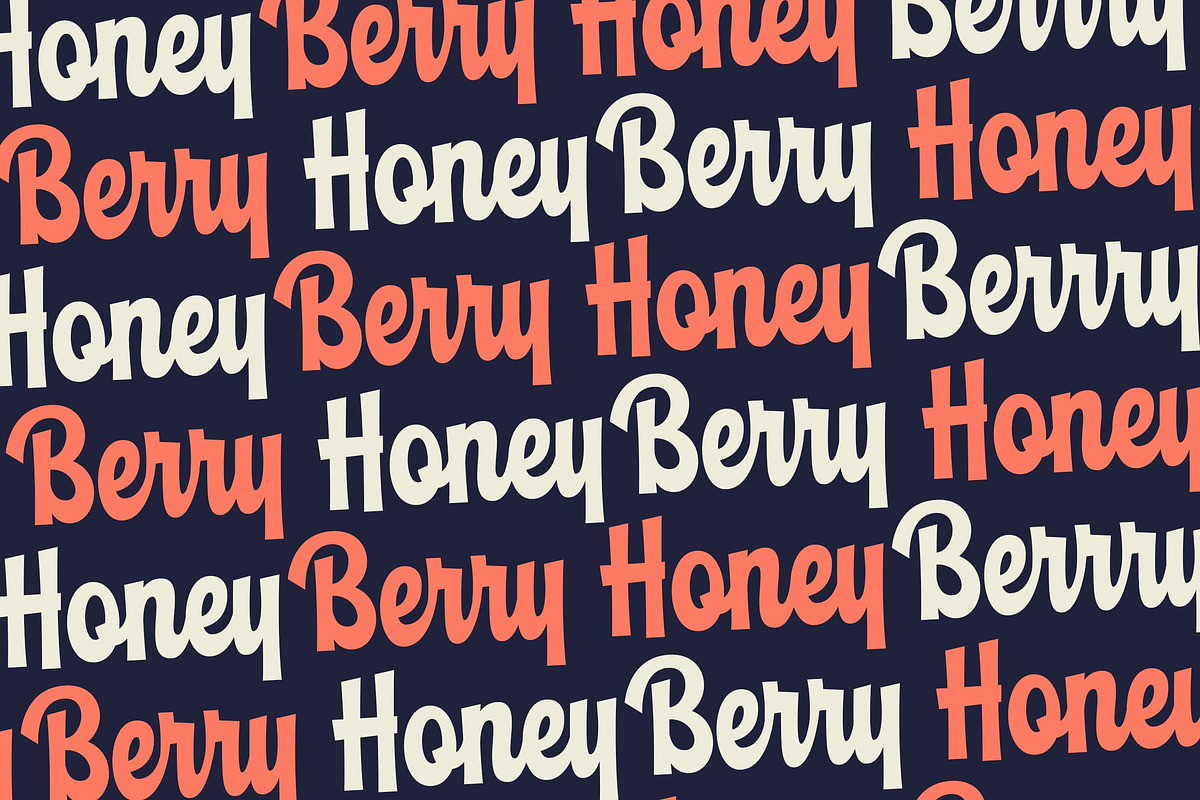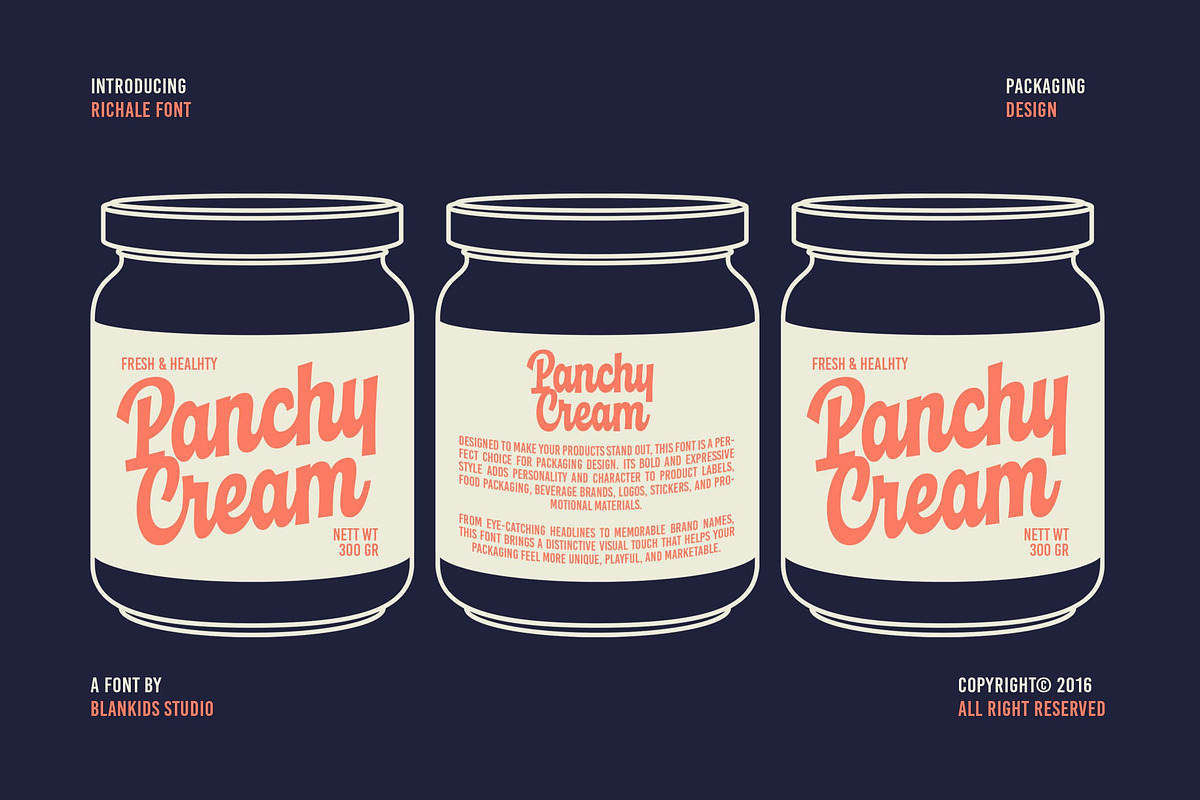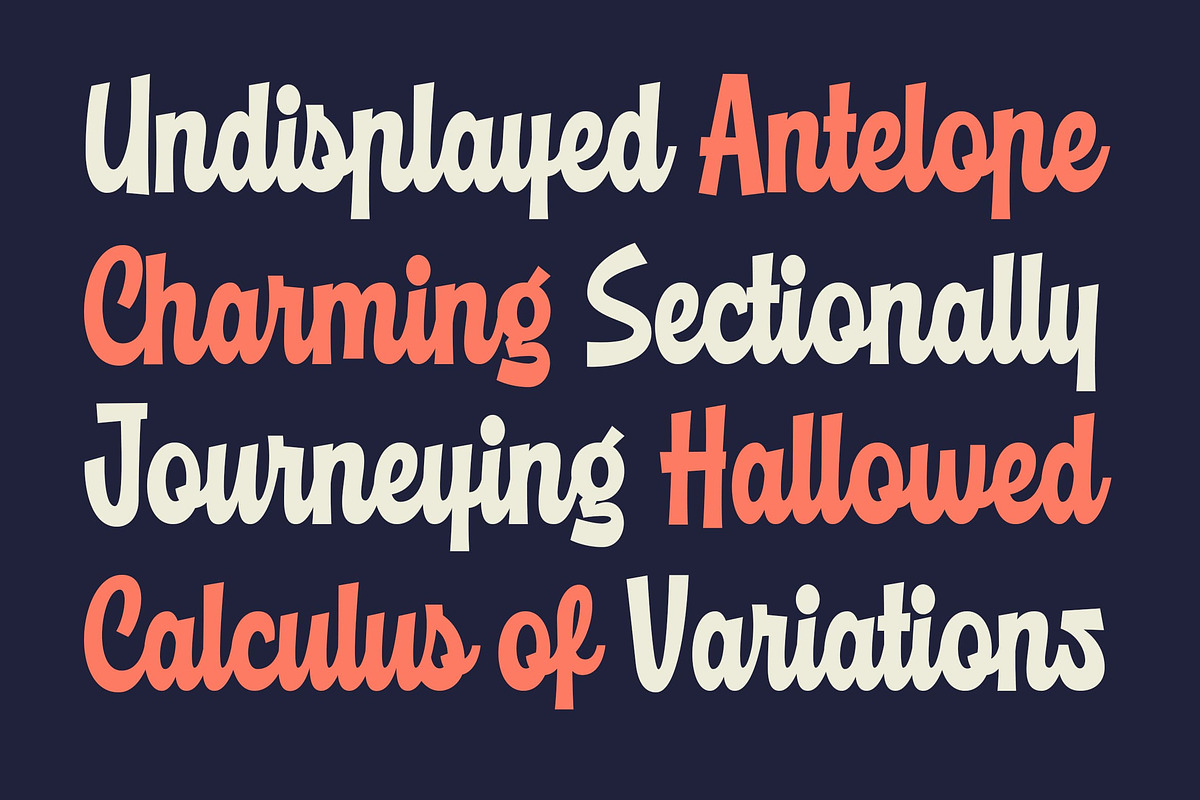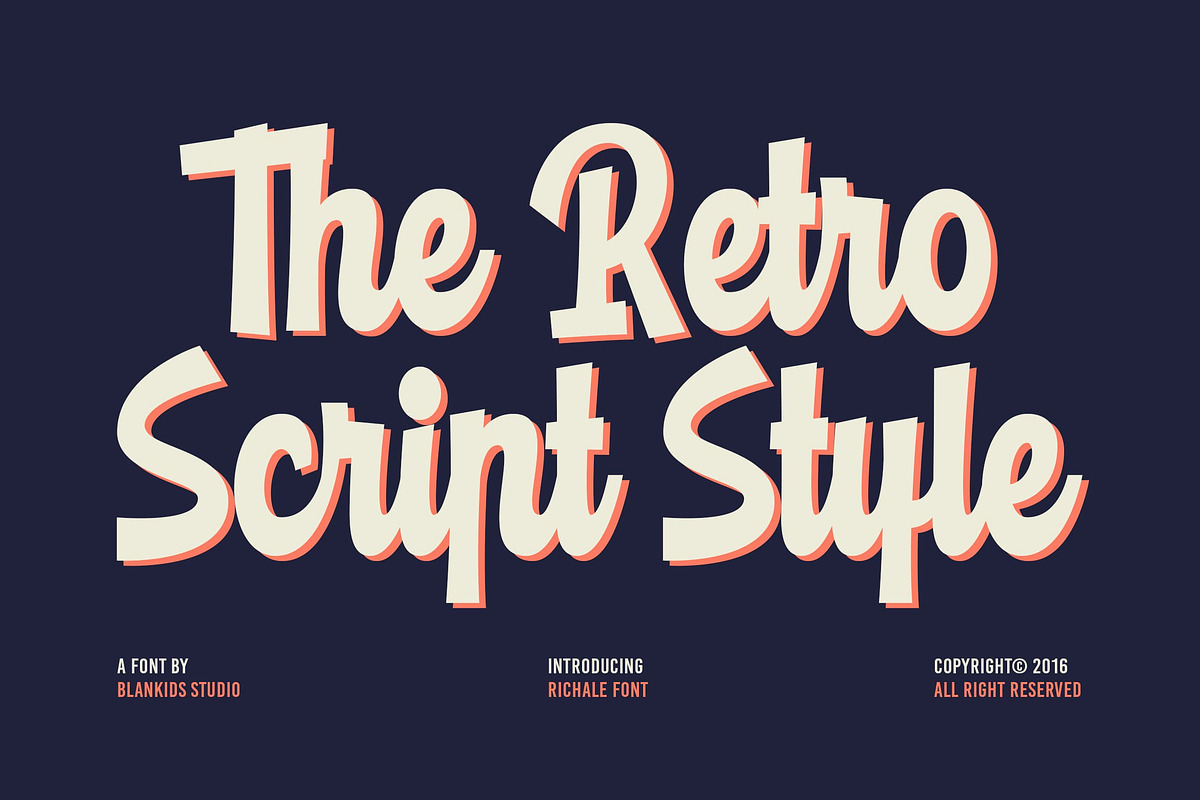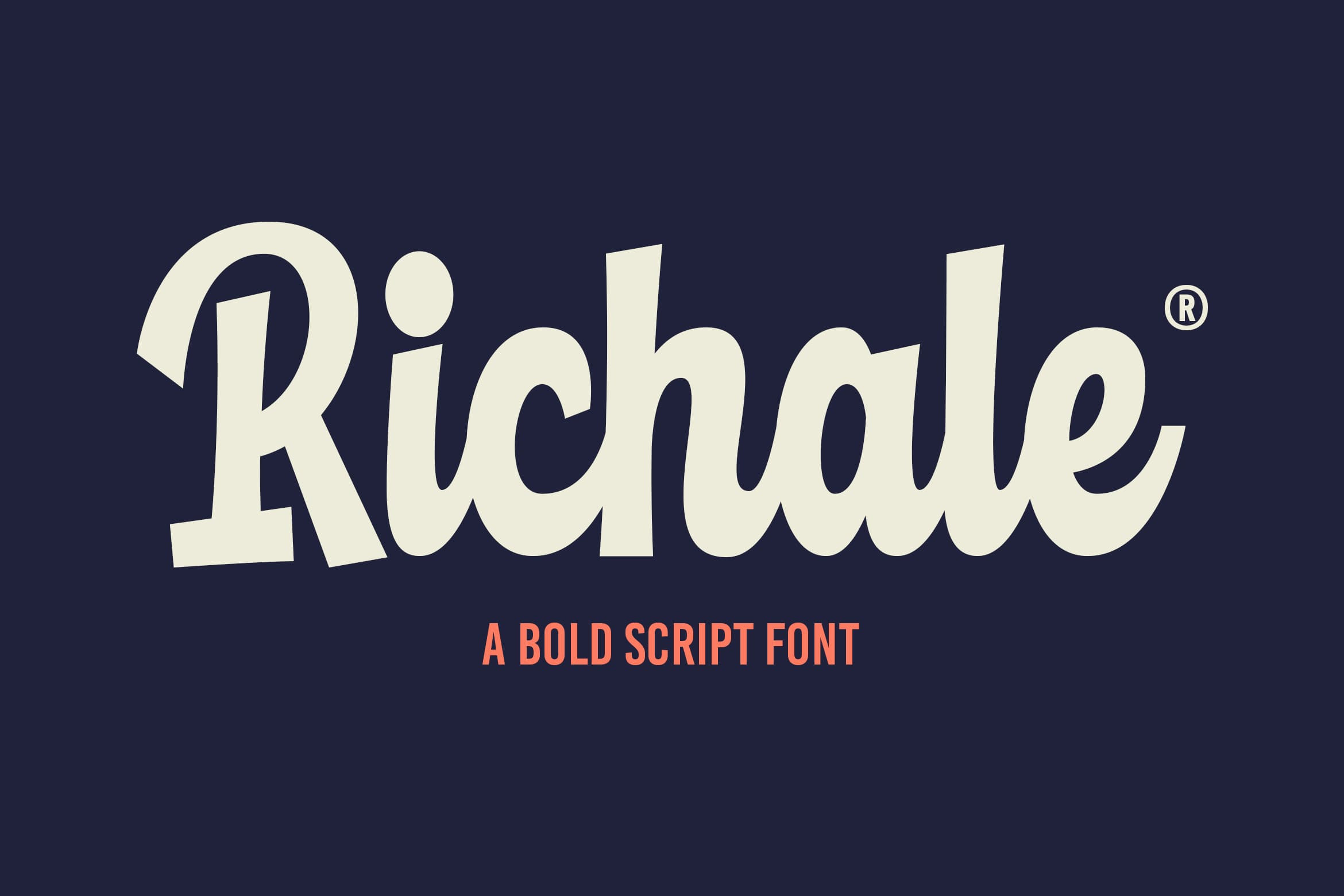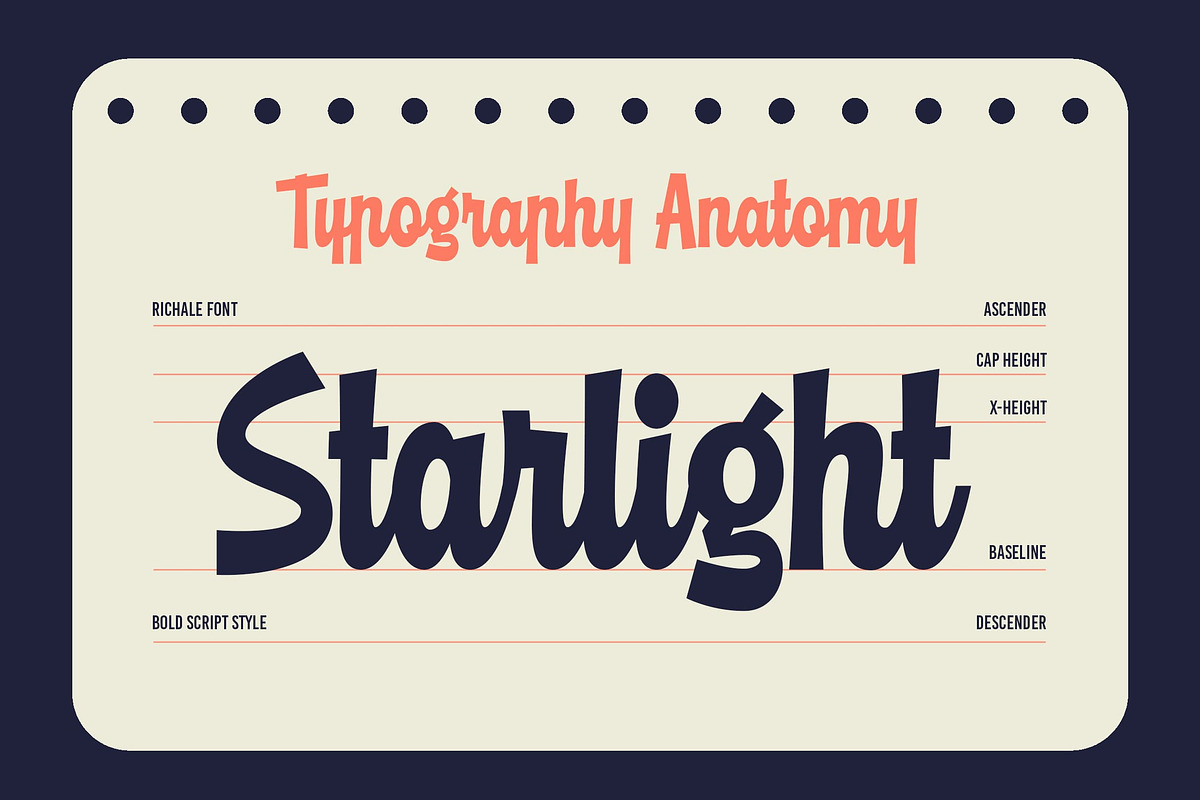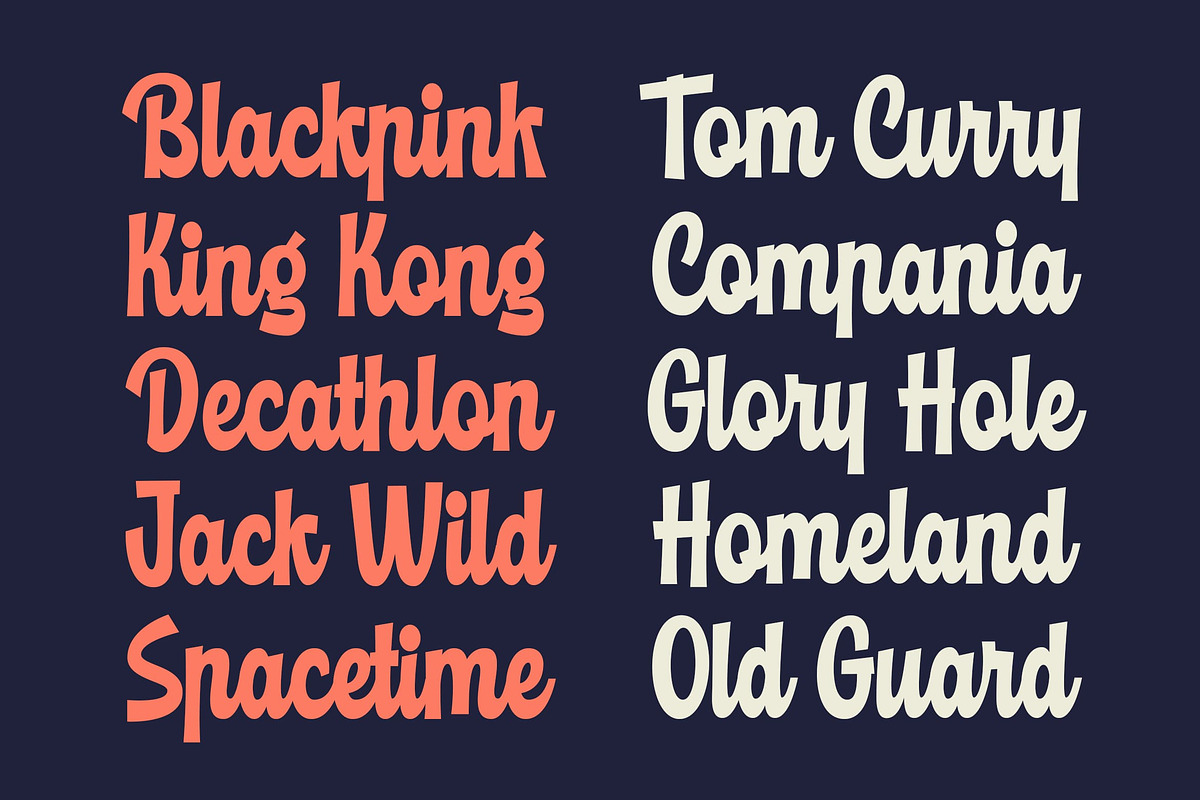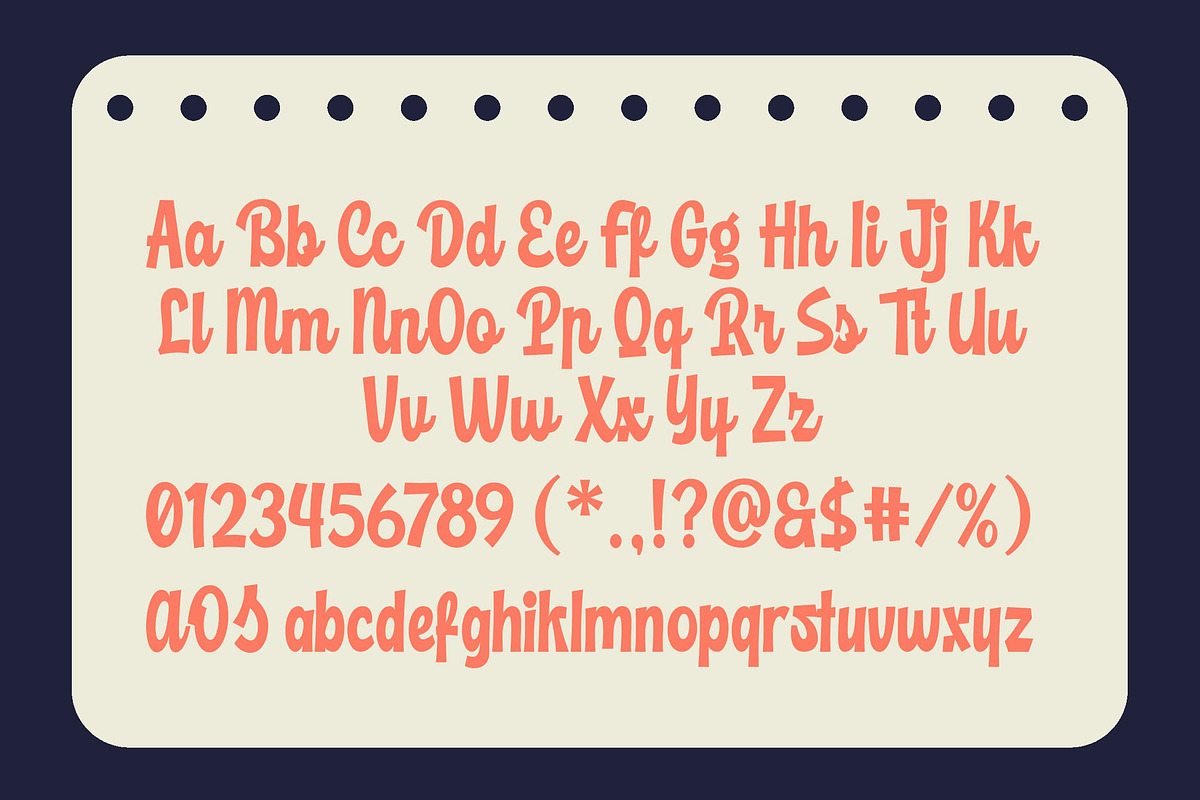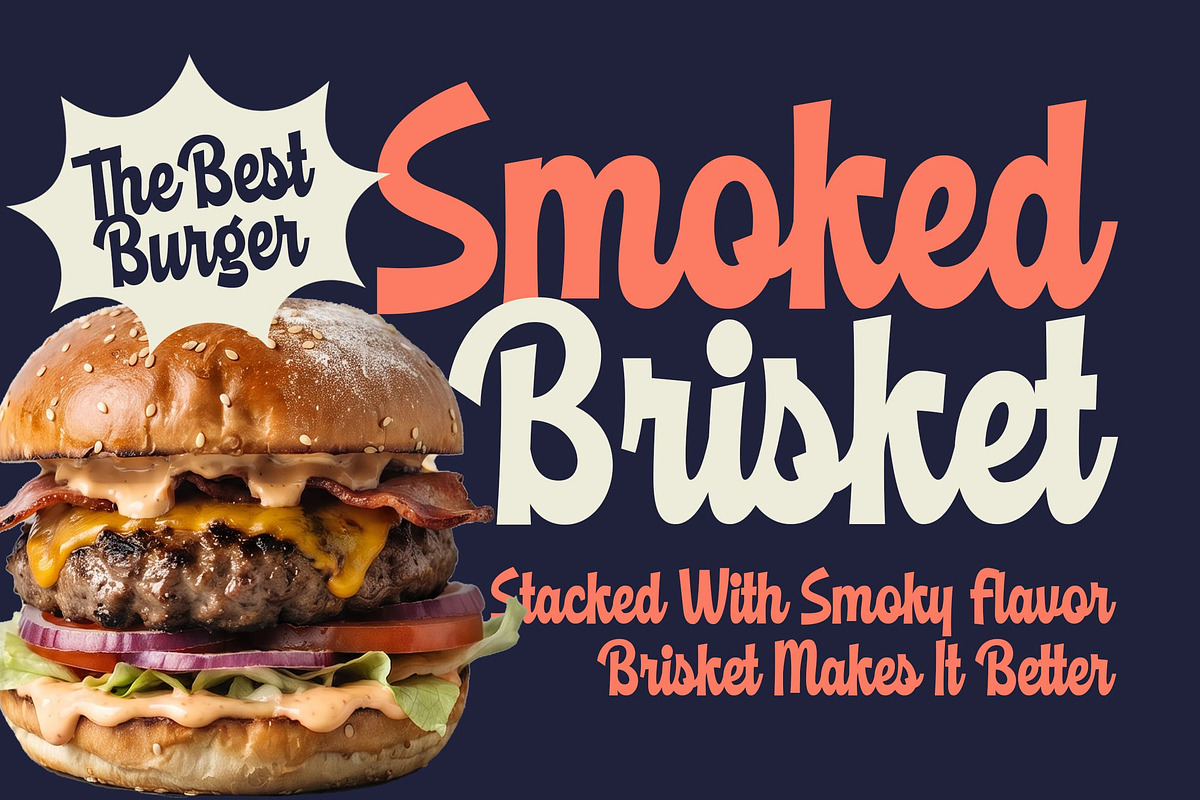
Richale a Bold Retro Script Font
Richale is a bold and expressive script font inspired by the energetic spirit of retro lettering and vintage advertising. With its chunky strokes, playful curves, and distinctive hand-lettered character, Richale brings a strong personality to every design.
Designed to make words stand out, Richale works beautifully for branding, packaging, food & beverage products, labels, posters, signage, apparel, logos, social media graphics, and advertising materials.
Whether you're creating a nostalgic burger brand, a groovy beverage label, a vintage bakery, a bold fashion logo, or an eye-catching promotional poster, Richale is made to give your design that extra dose of personality.
Its bold proportions help headlines remain impactful, while its flowing script character adds a handcrafted and dynamic feel. Richale is especially effective when used for product names, taglines, headlines, and short expressive phrases.